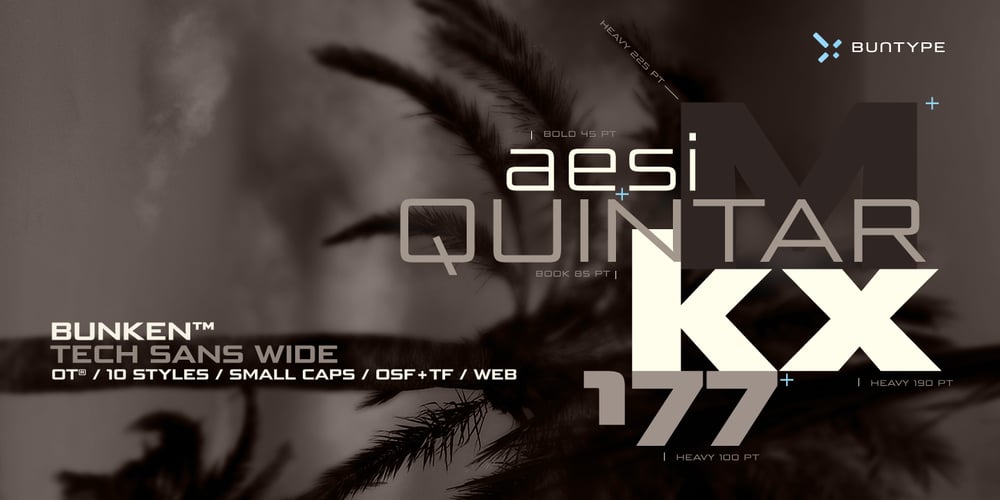
Bunken Tech Sans Wide Font Family was designed by Petra Niedernolte, Ralf Sander and published by Buntype. Bunken Tech Sans Wide contains 48 styles and family package options. The Bunken Tech Sans superfamily: A reminiscence of constructed fonts of the modern age designed with considerably cleaner forms. •See other members of the Superfamily: Bunken Tech Sans •For further details, view the Specimen PDF. Bunken Tech Sans Wide follows in the best tradition of the straight-lined and somewhat angular structures of its predecessors while offering a much more open and mild design. The shapes of the letters are therefore reduced to the most essential elements: The spurs on a, b, n and other lower case letters occur just as little as decorative or style details, the lightly rounded inside edges are more pleasing to the eye than certain historic role models and make for a harmonic, flowing style. Use In particular Bunken Tech Sans Wide stands out as an easy, distinctive headline font with its straight-lined, technical design. Open counters and large x-height make it equally suited for use in shorter texts. It is also perfectly complemented by Bunken Sans or Bunken Slab in longer texts (available soon). Features Available in 16 styles with widths ranging from Light to Heavy with associated Italics. All of the styles are very extensive: Support for at least 58 languages, Small Capitals, 9 number sets (e.g. Lining, Oldstyle, Tabular and Small Cap Figures), ligatures, alternate characters, numerous Opentype functions, and lots of other small features that make it more pleasant to work with the font on a daily basis as well as fulfilling typographic desires. Each style contains more than 870 characters! Each style is available in a professional (Pro) standard (Std) and Small Caps (SC) edition with a different range of functions. (Language support, OpenType features and number of glyphs). Details can be found on the respective pages. Bunken Tech Sans Wide is part of the Bunken Tech superfamily and is available in Condensed, Normal and Wide. Also of interest: The slab serif variation Bunken Tech Slab Features in Detail: 16 Weights: -Light -Book -Medium -SemiBold -Bold -ExtraBold -UltraBold -Heavy and corresponding Italics 3 Widths: -Condensed -Normal -Wide Alternate Characters: A, E, F, L, S, e, f, t, s, y, etc. Small Capitals 5 Sets of Figures: -Lining Figures -Old Style Figures -Tabfigures -Old Style Tabfigures -Small Cap Figures Automatic Ordinals Automatic Fractions Extended Language Support and more…